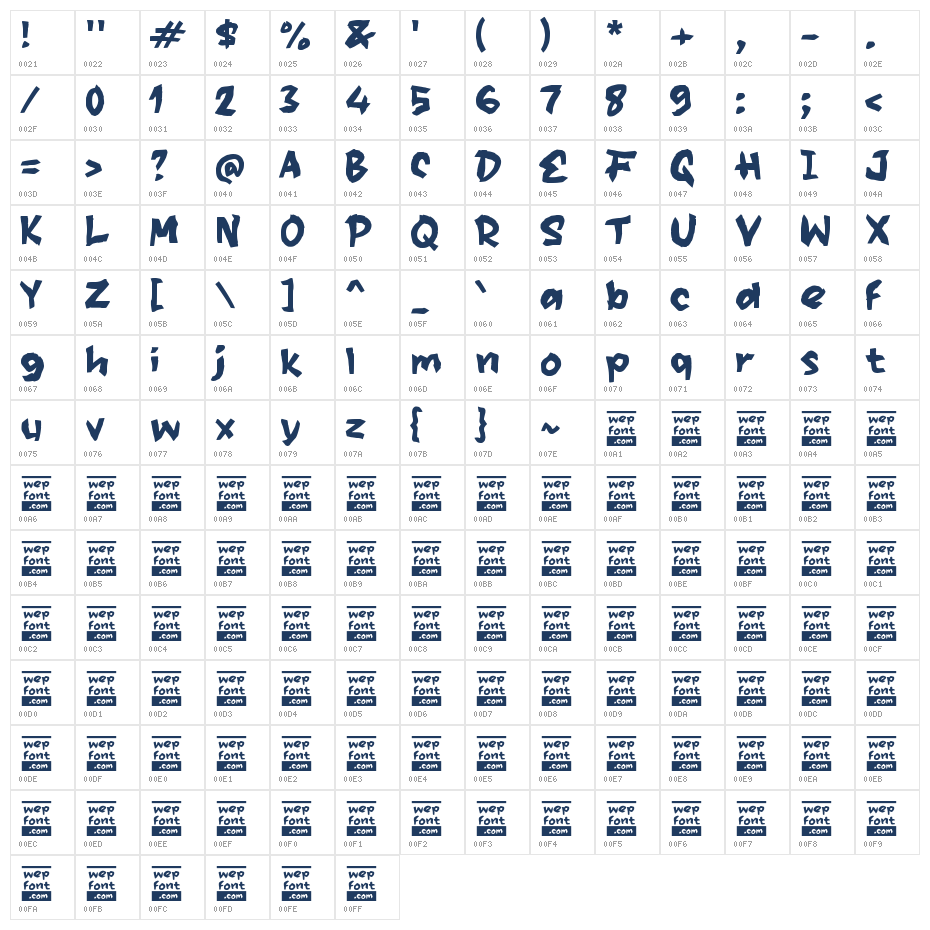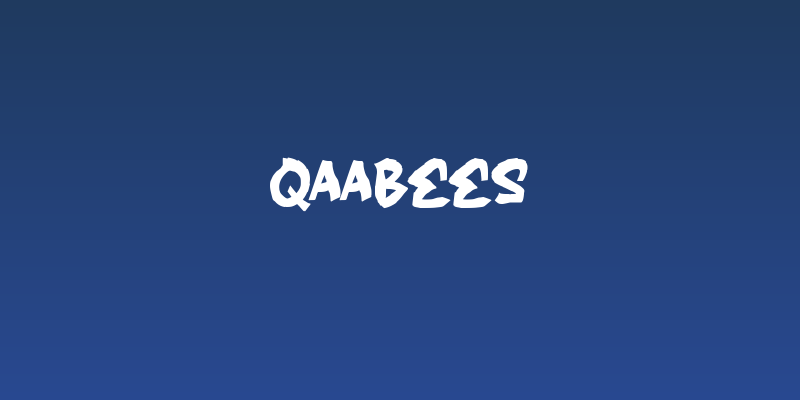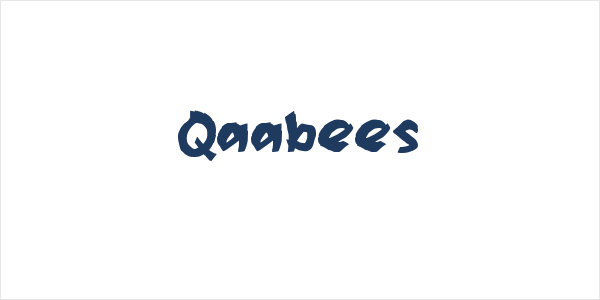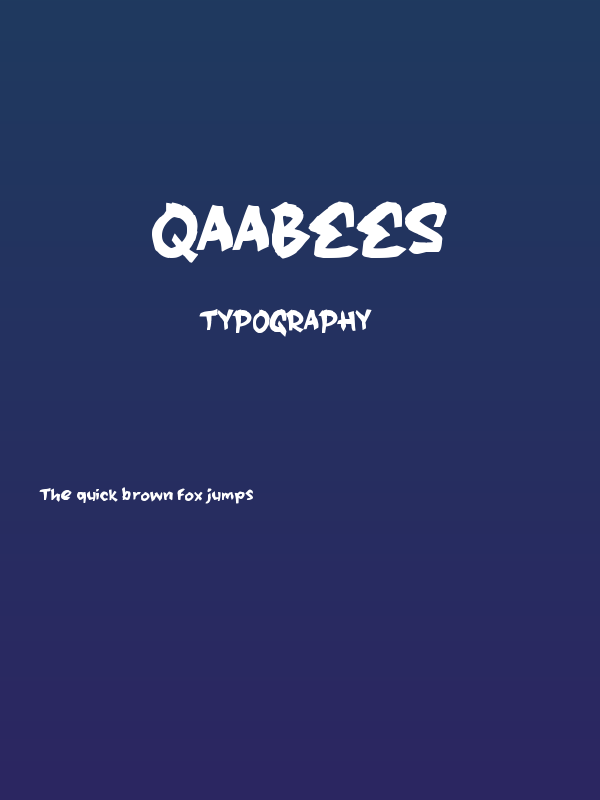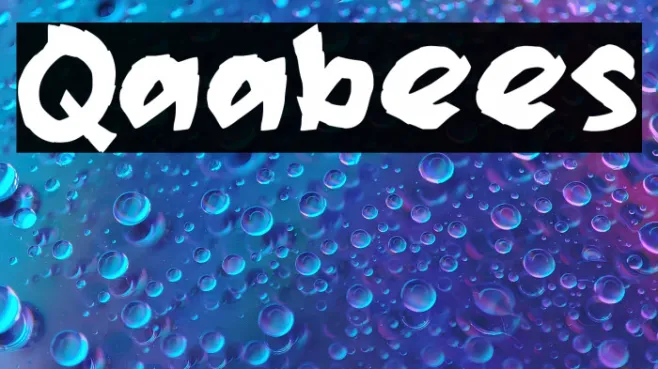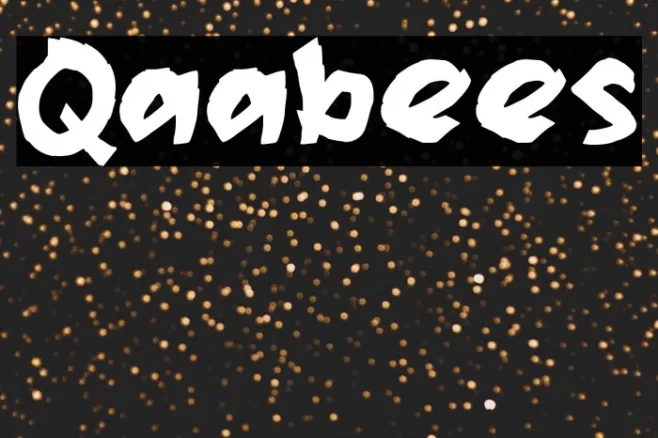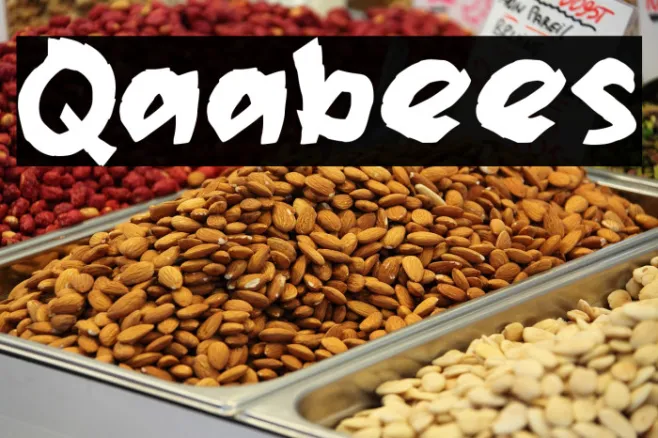
Qaabees Font
Qaabees Description
A bold, playful, and informal handwritten style font with irregular, brush-like strokes.
| Overall Style | Casual, Playful, Handcrafted |
| Use Case | Headlines, Logos, Posters, Social media graphics |